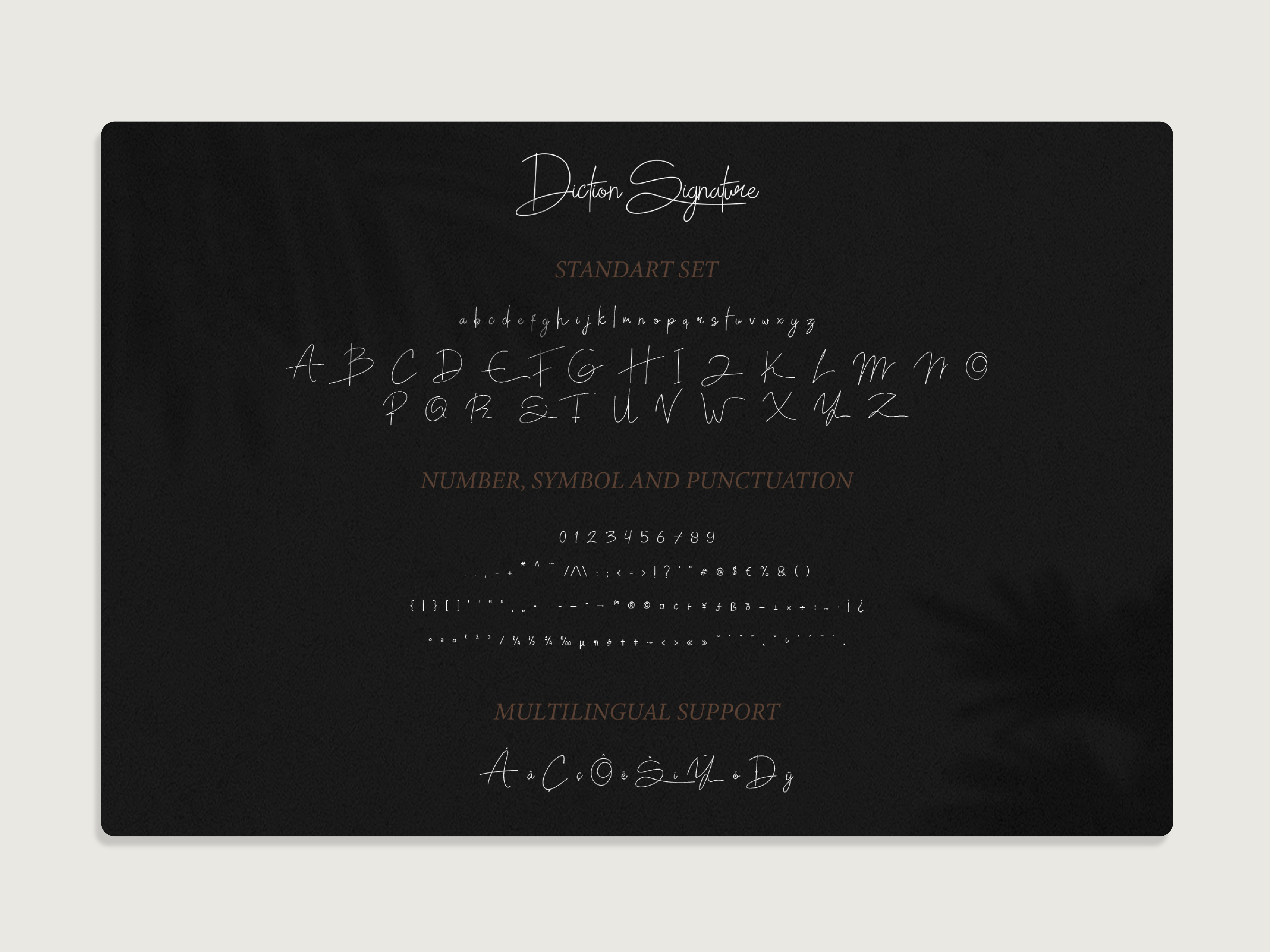
Diction Signature font is a beautifully crafted handwritten
The Diction Signature font is a beautifully crafted handwritten script that embodies elegance and sophistication. This preview showcases its full character set, including uppercase and lowercase letters, numbers, symbols, and punctuation, ensuring versatility for various design needs. With built-in multilingual support, it accommodates diverse languages, making it an excellent choice for branding, invitations, editorial designs, and luxury-themed projects. Its refined strokes and natural flow give a distinctive and stylish touch, perfect for those seeking a signature-style font with a modern and artistic appeal.